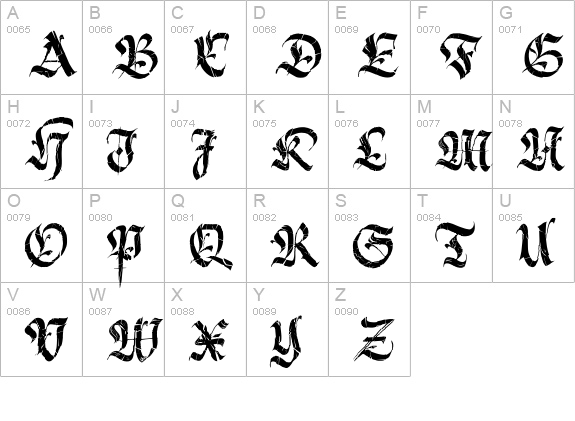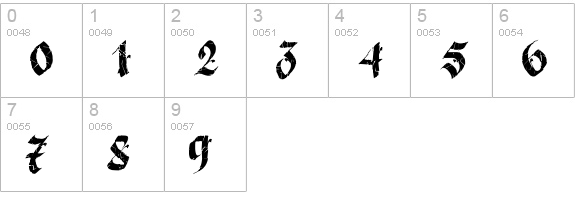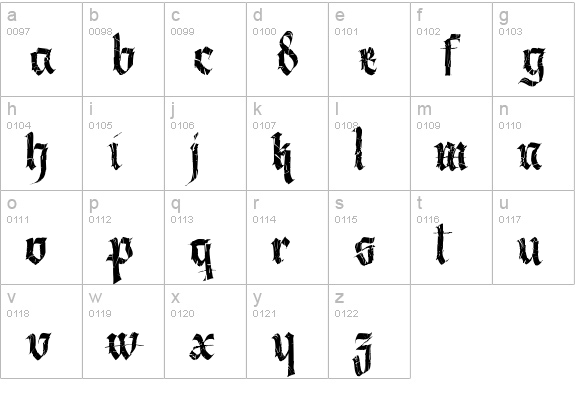
Berliner Fraktur Crashed font is a unique and edgy typeface that exudes a sense of history and character. With its fractured and distressed appearance, this font brings a bold and impactful look to any design project. The sharp angles and jagged lines of Berliner Fraktur Crashed font make it perfect for adding a touch of drama and intrigue to your work. This font is freely available to download at FontsMarket.com, making it easily accessible for designers and creatives looking to add a touch of the unconventional to their projects. Whether you're working on a poster, logo, or branding materials, Berliner Fraktur Crashed font is sure to make a statement and leave a lasting impression. Embrace the unique charm of this font and bring a touch of rebelliousness to your designs today.